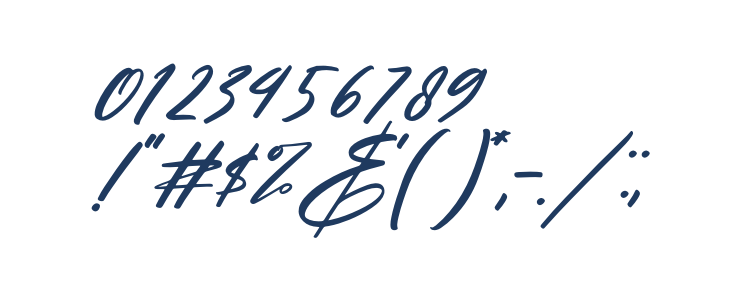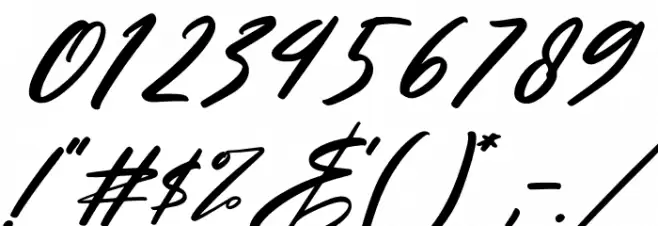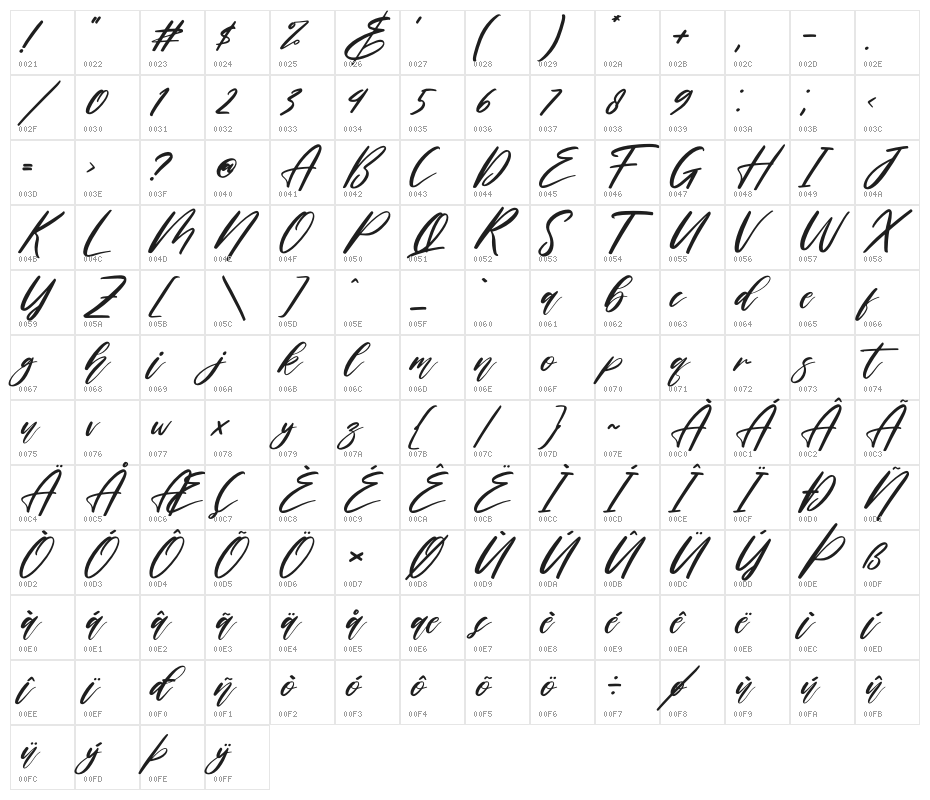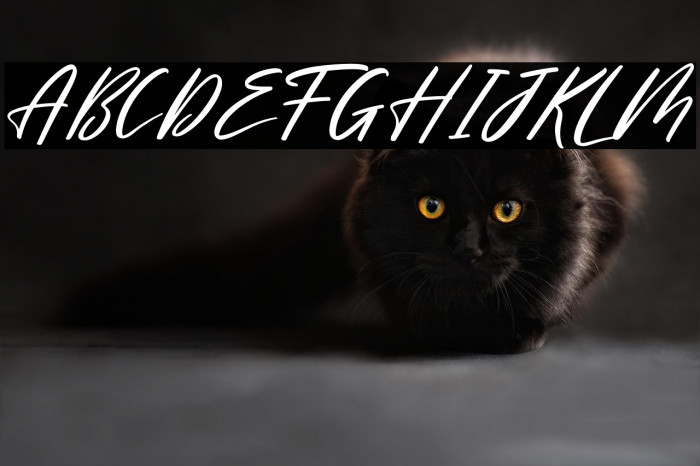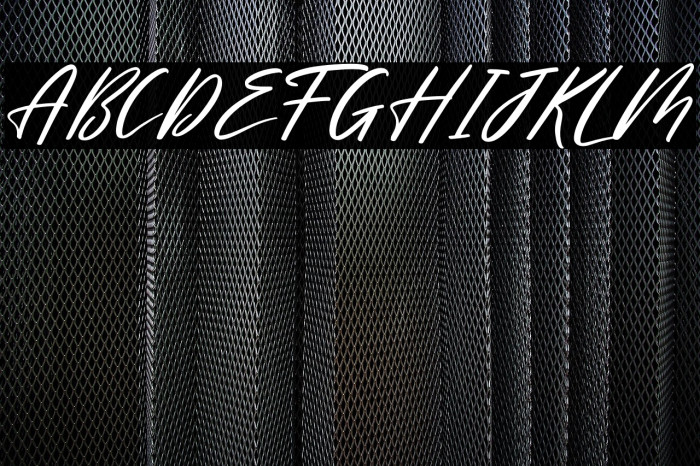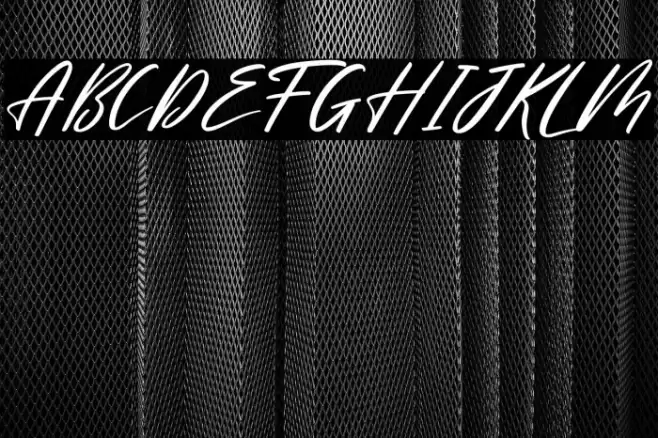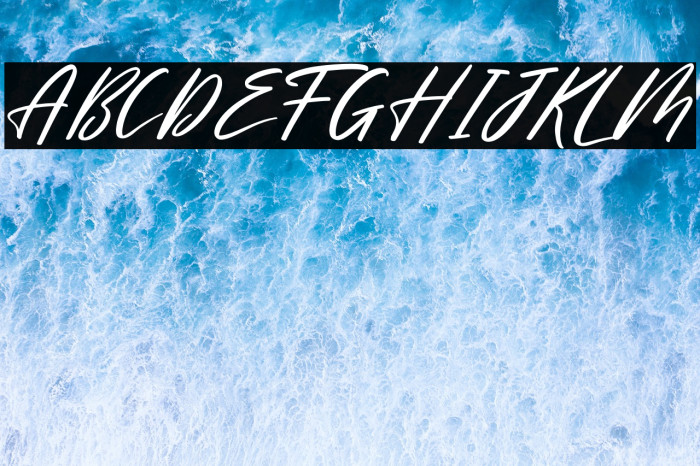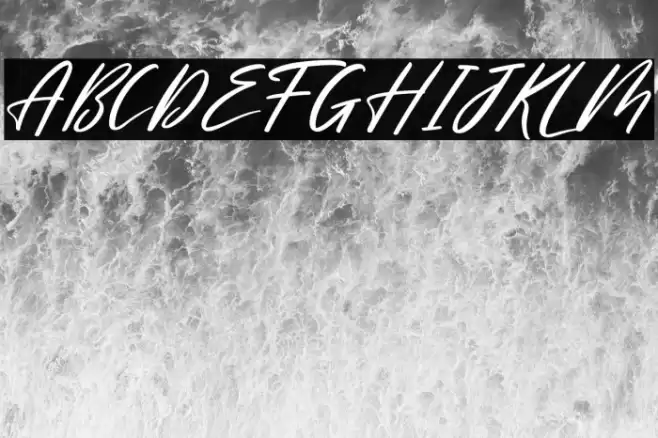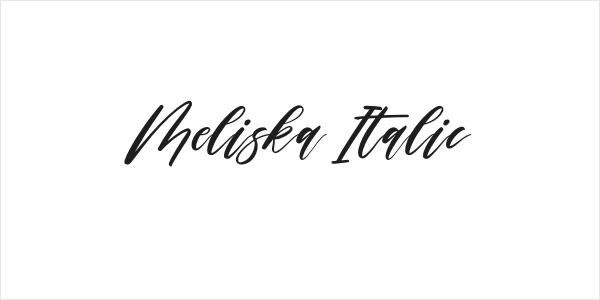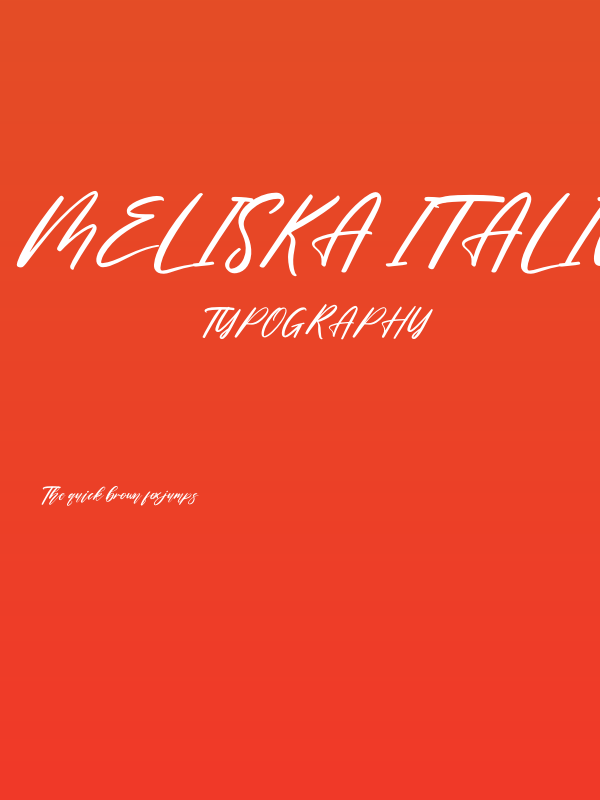
Meliska Italic Font
Meliska Italic Description
This font exhibits a dynamic and fluid handwritten style, characterized by its elegant and flowing script. The letters are slanted, giving it an italic appearance, which enhances its graceful and sophisticated look. The strokes vary in thickness, providing a medium contrast that adds to its visual interest. The uppercase letters are bold and prominent, while the lowercase letters maintain a consistent flow, creating a harmonious balance. The numbers and special characters are designed to match the overall aesthetic, ensuring uniformity across all elements. This font is ideal for projects that require a personal touch, such as invitations, greeting cards, or branding materials.
| Proposed Projects | Ideal for invitations, greeting cards, branding, and personal projects. |